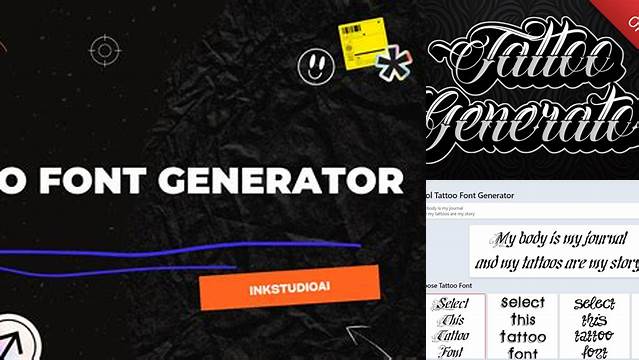
Tattoo Font Generator: Find Your Perfect Tattoo Lettering
Hey guys! Getting a tattoo is a big deal, right? It's something that's going to be on your body forever, so you want to make sure it's absolutely perfect. And a huge part of that is choosing the right font! A tattoo font generator can be a total lifesaver. It helps you visualize how different fonts will look as a tattoo, saving you from tattoo regrets. Let's dive into everything you need to know about finding the perfect tattoo lettering using a tattoo font generator!
Tattoo Lettering Styles
So, you're thinking about getting some ink? Awesome! The style of lettering you choose for your tattoo is super important. It sets the whole vibe and makes sure your message comes across just right. Let's break down some popular tattoo lettering styles and see which one vibes with you the most.
Classic Script Fonts for Tattoos
If you're leaning towards something timeless and elegant, classic script fonts for tattoos are where it's at. Think about those flowing, cursive letters that just ooze sophistication. These fonts are perfect for names, quotes, or anything that needs a touch of class. Choosing classic script fonts are great especially if you want to add a timeless touch to your ink.
Classic script fonts bring a sense of tradition and artistry to your skin. They've been around for ages, and their beauty is undeniable. Whether it's a memorial tattoo, a declaration of love, or simply a meaningful phrase, script fonts add that extra layer of depth and emotion. But remember, the legibility is key. A beautifully written script is only effective if people can actually read it. So, when you're playing around with a tattoo font generator, make sure the script you choose is clear and easy to decipher, even from a distance. Imagine getting a stunning quote tattooed only for people to squint and ask, "What does that even say?"
Gothic Fonts for Tattoo Designs
Want something with a bit more edge? Gothic fonts for tattoo designs are bold, dramatic, and full of character. These fonts are inspired by medieval lettering, with sharp angles and intricate details. It's a popular choices for those who wants gothic fonts in their tattoos.
Gothic fonts aren't just about looking cool; they also carry a sense of history and power. They can make a statement without saying a word, which is perfect for those who want their tattoo to have a strong visual impact. However, remember that the complexity of Gothic fonts means they might not work well for small tattoos. All those intricate details can blur together over time, turning your epic tattoo into a messy blob. So, if you're set on Gothic, go big or go home! And definitely use that tattoo font generator to see how it will look on your skin before committing.
Old English Tattoo Fonts
Old English tattoo fonts are similar to Gothic but have a more distinct and recognizable style. These fonts are often used for names or initials, giving a sense of heritage and tradition. Many people are looking for old english fonts due to its readability and unique looks. With old english tattoo fonts, you will never go wrong!
Old English tattoo fonts carry a weight of history and tradition that's hard to ignore. Think about it: these fonts were used in ancient documents, royal decrees, and historical texts. Getting an Old English tattoo is like carrying a piece of history with you. However, keep in mind that Old English can be tricky to read, especially when it's highly stylized. Make sure the letters are clear and distinct, and that the overall design doesn't get too cluttered. Using a tattoo font generator can help you experiment with different sizes and placements to ensure your tattoo is both meaningful and legible.
Simple and Modern Tattoo Fonts
If you're all about minimalism, simple and modern tattoo fonts are the way to go. Clean lines, geometric shapes, and a no-fuss aesthetic make these fonts perfect for those who want something understated yet stylish. These modern tattoo fonts gives a timeless look for your tattoo.
Simple and modern tattoo fonts prove that less can definitely be more. They're perfect for those who appreciate clean aesthetics and want a tattoo that's timeless and versatile. These fonts can work for anything, from inspirational words to significant dates. However, don't mistake simplicity for lack of impact. The right modern font can be incredibly striking, drawing attention with its sleekness and clarity. When choosing a simple font, pay attention to the spacing between letters. Too much or too little space can throw off the whole design. A tattoo font generator will allow you to tweak the kerning and leading until you achieve the perfect balance. Remember, the goal is to create a tattoo that's both visually appealing and easy to read.
Cursive Tattoo Font Generator
A cursive tattoo font generator is your best friend if you love elegant, flowing designs. These generators let you preview how different cursive styles will look on your skin, ensuring your tattoo looks as beautiful as you imagined. This cursive tattoo font is usually used for names.
A cursive tattoo font generator is like having a personal calligraphy artist at your fingertips. It allows you to explore the endless possibilities of cursive lettering, from delicate and airy scripts to bold and dramatic swirls. Cursive fonts add a touch of romance and personality to your tattoo, making them perfect for names, quotes, or any word that holds special meaning. However, the beauty of cursive also comes with its challenges. The intricate loops and flourishes can sometimes make it difficult to read, especially in smaller tattoos. That's why a tattoo font generator is essential. It lets you experiment with different sizes, thicknesses, and spacing to ensure your tattoo is both beautiful and legible. Plus, you can try out different color combinations to see how they affect the overall look. With a little creativity and the right tools, you can create a cursive tattoo that's truly one-of-a-kind.
How to Use a Tattoo Font Generator
Okay, so you're sold on the idea of using a tattoo font generator. Great choice! But how do you actually use one? Don't worry, it's super easy. Let's walk through the steps so you can start creating your dream tattoo.
Step-by-Step Guide to Font Generators for Tattoos
Using a font generator for tattoos is a breeze. First, find a reliable online generator (there are tons out there!). Then, type in the word or phrase you want for your tattoo. Next, browse through the different font options until you find one you love. Finally, customize the size, color, and style to see how it looks. And there you have it!
Using a font generator for tattoos is like having a virtual design studio at your fingertips. It's an incredibly powerful tool that lets you explore endless possibilities without having to commit to anything permanent. Start by finding a reputable online generator that offers a wide variety of fonts and customization options. Once you've found one you like, the real fun begins. Type in the word, phrase, or design you want to see in tattoo form. The generator will then display your text in a variety of different fonts, allowing you to quickly compare and contrast different styles. Don't be afraid to experiment with different sizes, colors, and effects. Most generators will let you see how the tattoo would look on different parts of the body, which can be incredibly helpful in visualizing the final result. Remember, the goal is to create a tattoo that you'll love for years to come. So take your time, explore your options, and don't settle for anything less than perfect.
Choosing the Right Tattoo Font Size
The right tattoo font size is crucial. Too small, and it might become illegible over time. Too big, and it might not fit where you want it. Consider the placement and the length of your text when deciding on the size. A tattoo font generator will usually provide you a suggestion for the right tattoo font size.
Choosing the right tattoo font size is a balancing act. You want your tattoo to be large enough to be easily readable, but not so large that it overwhelms the design or looks out of place on your body. The size of your tattoo will depend on several factors, including the font style, the length of the text, and the placement of the tattoo. For example, a delicate script font might need to be slightly larger than a bold, blocky font to ensure readability. Similarly, a long quote might need to be smaller than a single word to fit comfortably on your skin. A tattoo font generator can be incredibly helpful in visualizing different sizes and placements. Most generators will allow you to adjust the size of the font and see how it looks on a virtual body. This can help you avoid the common mistake of getting a tattoo that's either too small to read or too large to fit in the desired area. When in doubt, it's always better to err on the side of caution and go a little bigger. Over time, tattoos can fade and blur, so a slightly larger font will help ensure that your tattoo remains legible for years to come.
Font Generator for Tattoo Placement Preview
Some font generators for tattoo even let you preview how the tattoo will look on different parts of your body! This is super helpful for visualizing the final result and making sure everything looks just right. This font generator for tattoo is highly suggested to use before getting a real tattoo.
A font generator for tattoo placement preview is an invaluable tool for anyone considering getting inked. It allows you to see exactly how your chosen design will look on different parts of your body, taking into account the contours, curves, and natural lines of your skin. This is especially important for tattoos with intricate details or specific placements, as the wrong placement can throw off the entire design. For example, a tattoo that looks great on a flat surface like your back might not look as good on a curved area like your wrist or ankle. A font generator for tattoo lets you experiment with different angles, sizes, and positions until you find the perfect placement. This can help you avoid the common mistake of getting a tattoo that looks awkward or out of place. Plus, it can give you a better sense of how the tattoo will interact with your clothing and other accessories. Ultimately, a font generator for tattoo empowers you to make informed decisions and ensures that your tattoo looks exactly as you envisioned.
Tips for Choosing the Best Tattoo Font
Choosing the best tattoo font can feel overwhelming, but it doesn't have to be! Here are some tips to help you narrow down your options and find the perfect font for your tattoo.
Consider Your Tattoo's Meaning
Think about the message you want to convey with your tattoo. Is it a tribute to someone? A personal motto? The meaning behind your tattoo should influence the font you choose. If it is a tribute to someone, consider your tattoo's meaning to be elegant and memorable.
Consider your tattoo's meaning is the first and most important step in choosing the perfect font. Your tattoo is a permanent expression of something meaningful to you, so the font should reflect the message you're trying to convey. Are you honoring a loved one? Celebrating a personal achievement? Or simply expressing your individuality? The font you choose should complement the meaning behind your tattoo and enhance its overall impact. For example, a delicate script font might be perfect for a romantic quote or a tribute to a loved one. On the other hand, a bold, Gothic font might be more appropriate for a powerful statement or a symbol of strength. When in doubt, ask yourself: